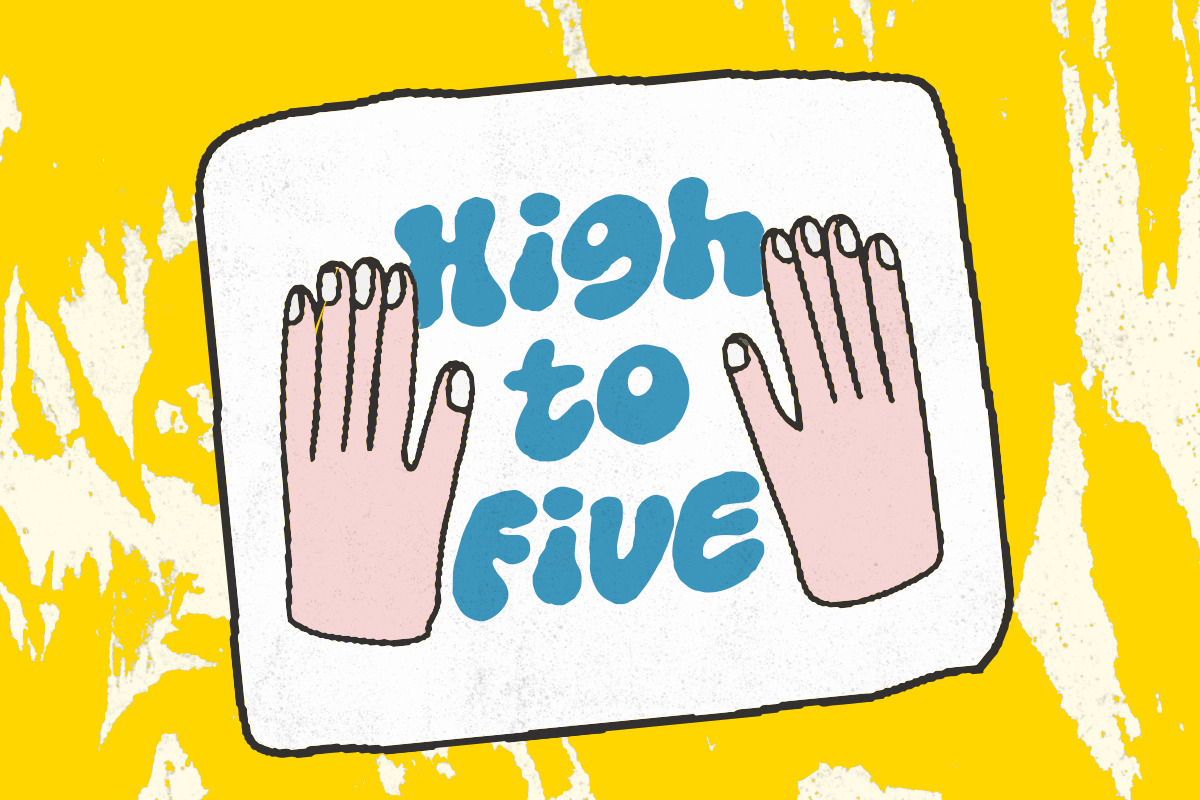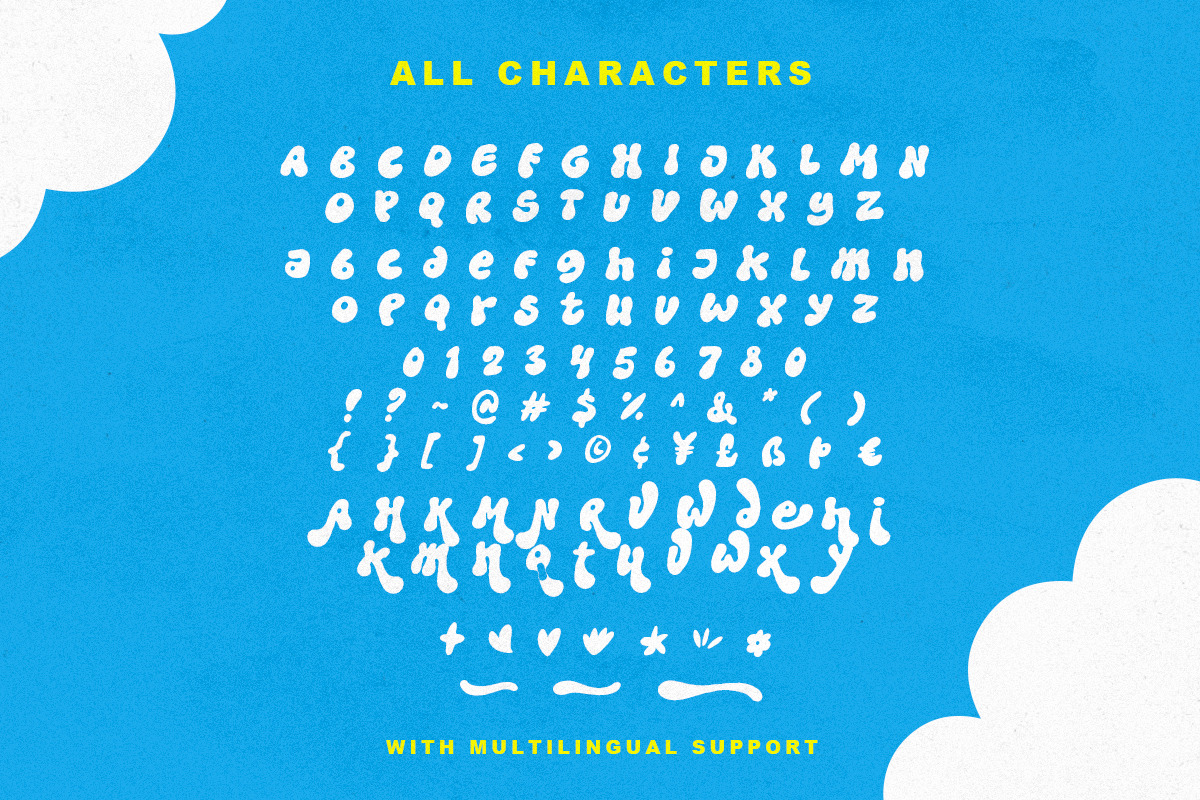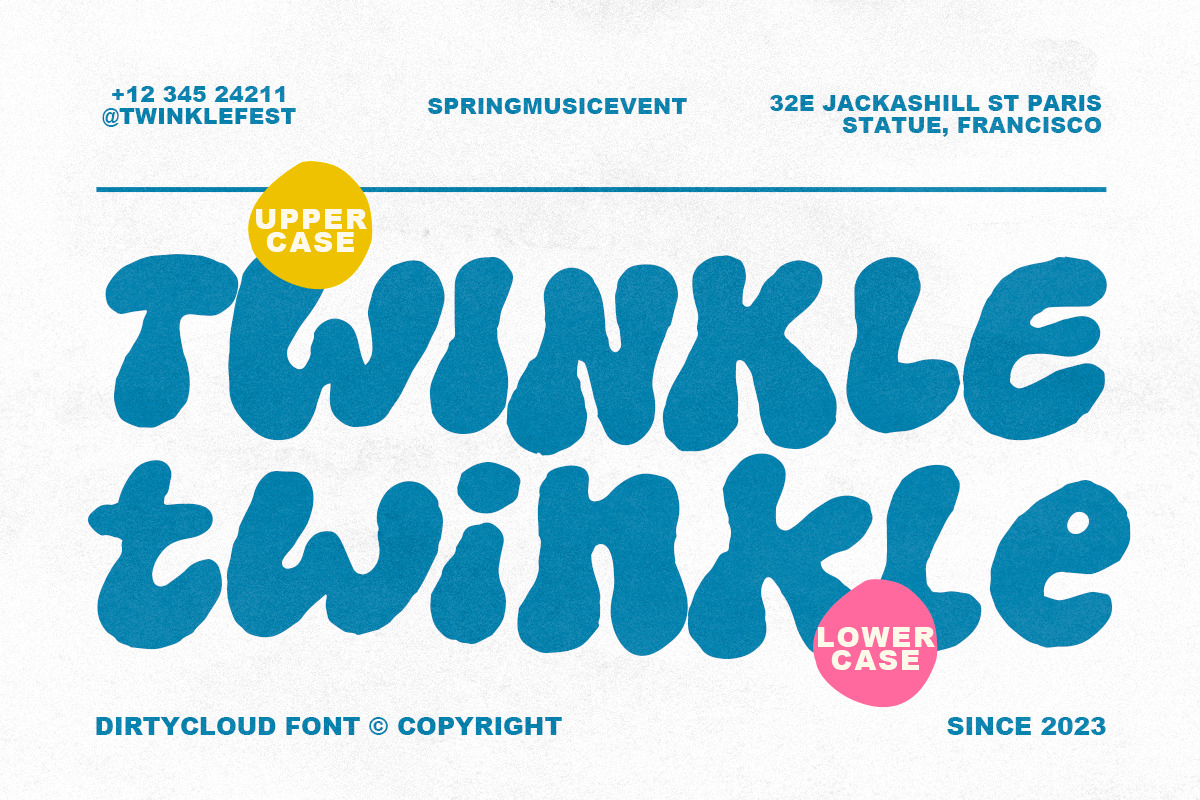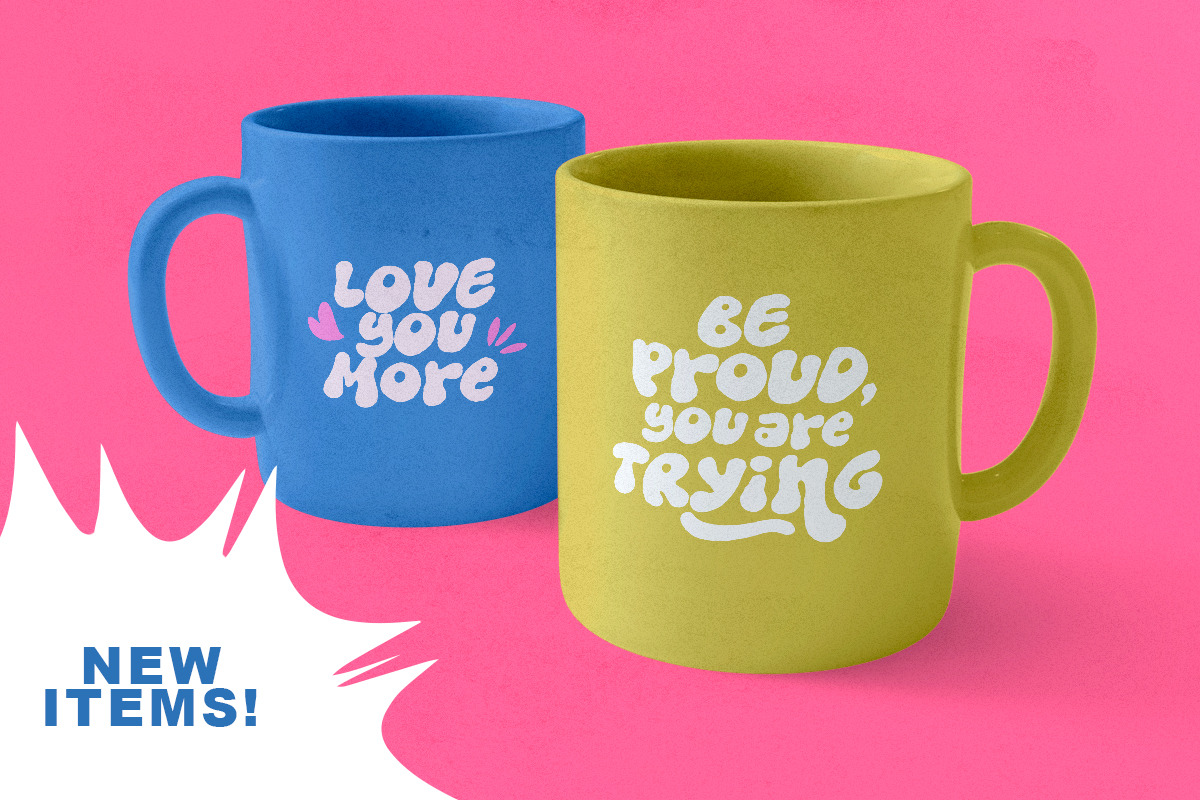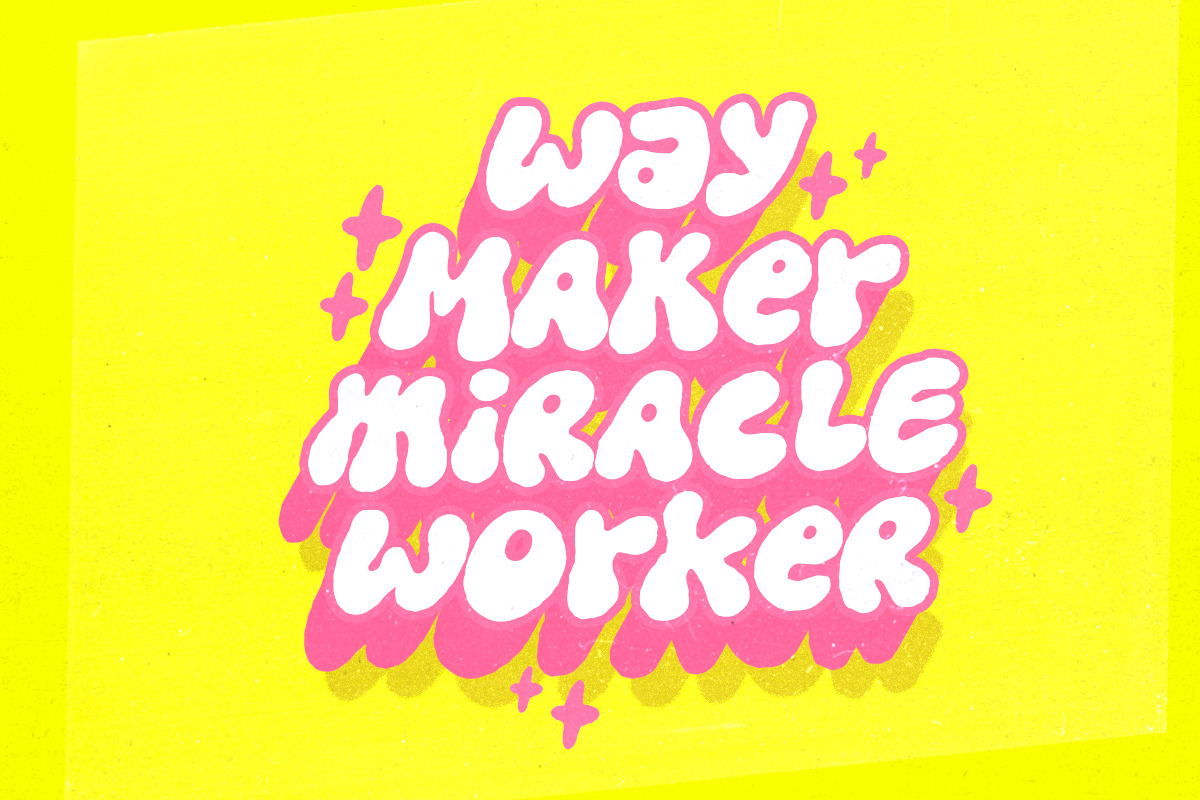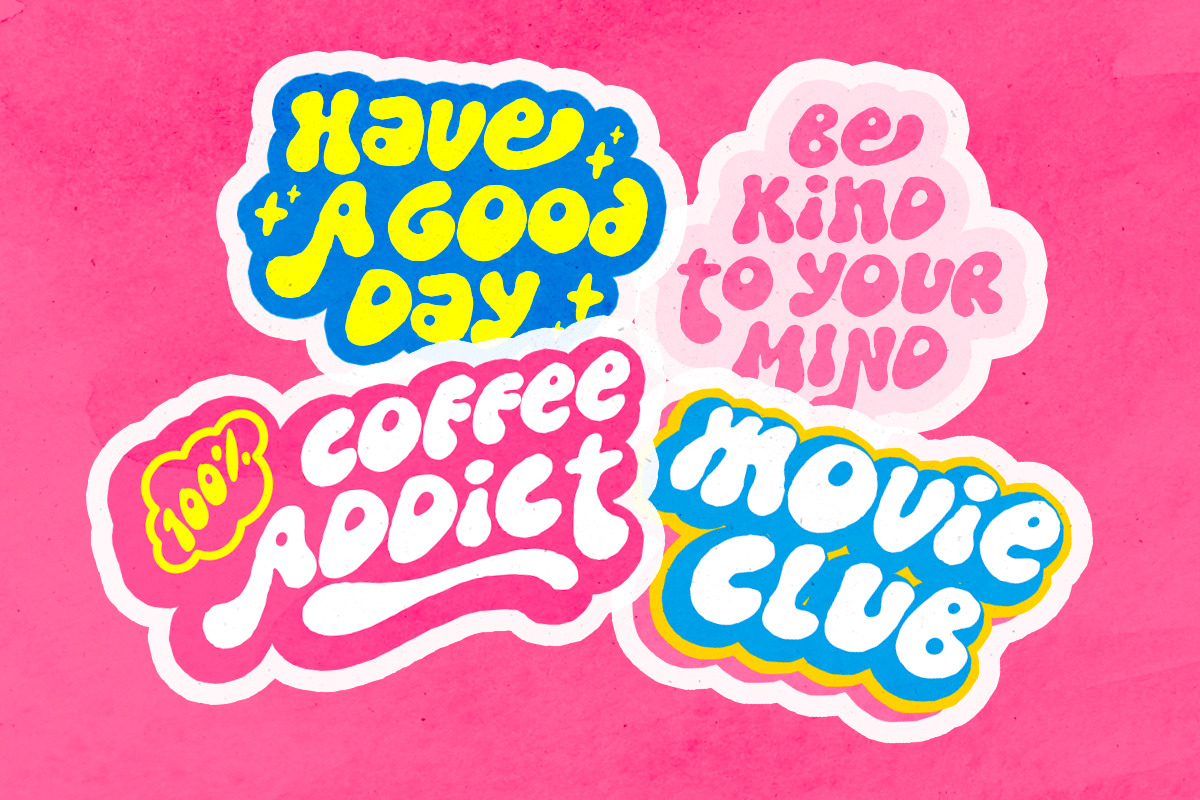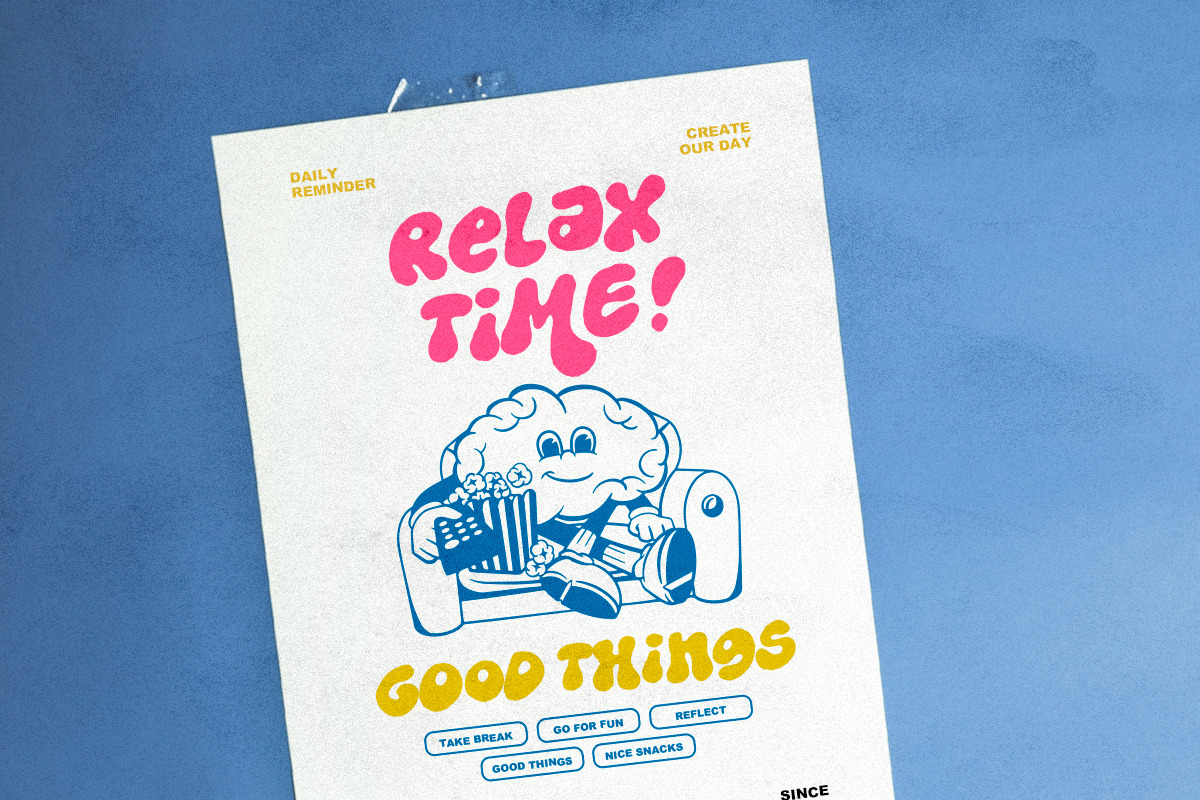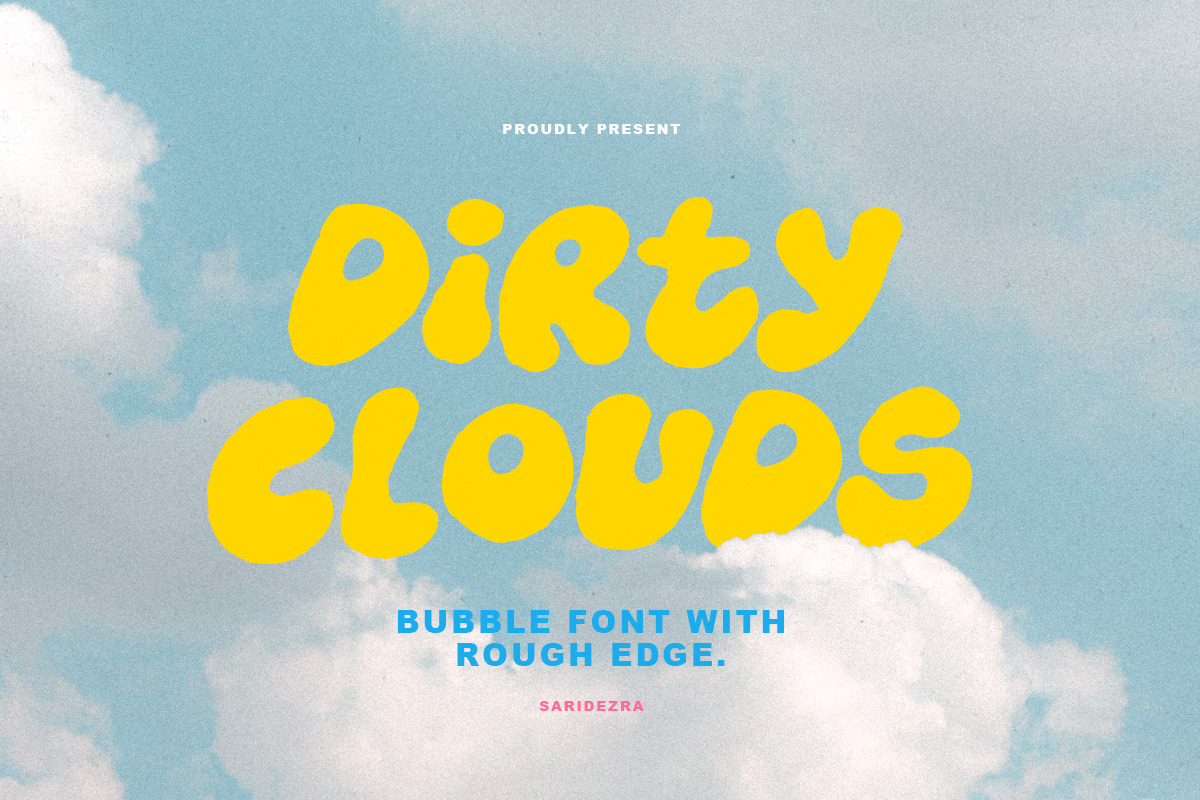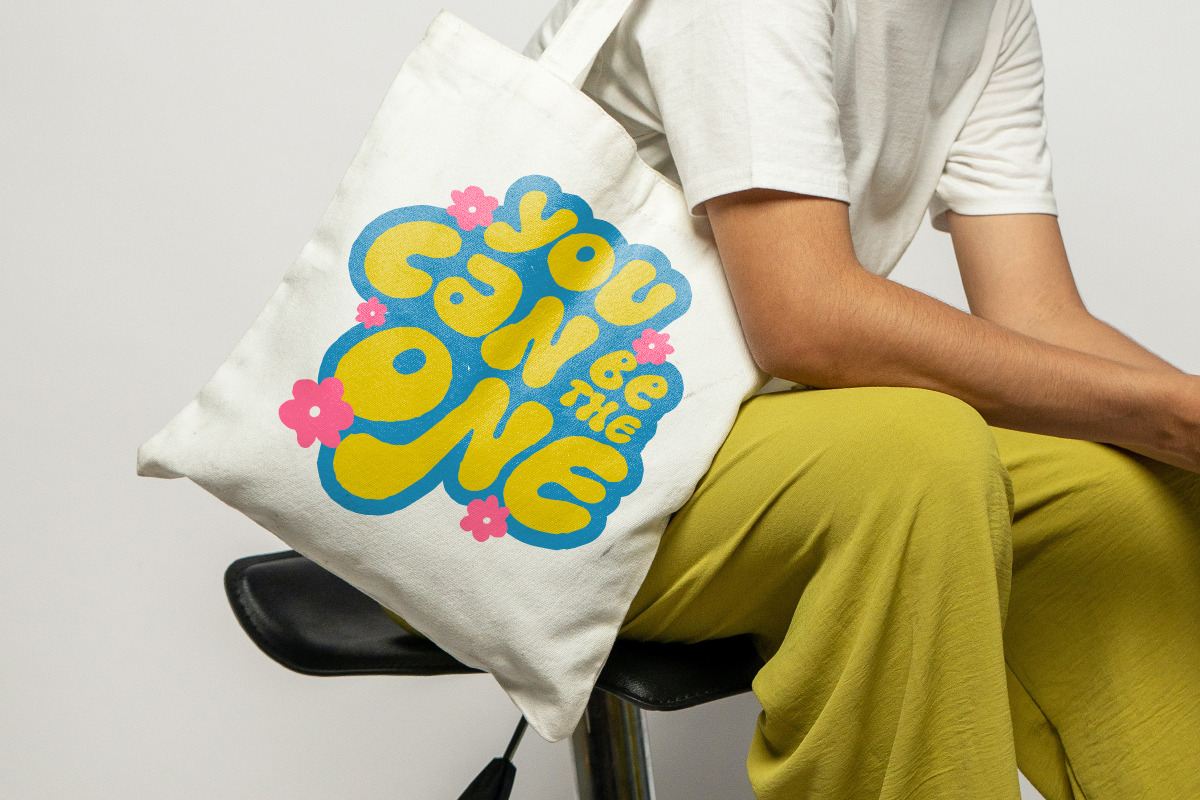
Dirty Clouds - Rough Bubble Font
Dirty Clouds is a hand drawn bubble font with rough edge. With organic looks, this font will make your design popping yet humanist. You can use this font for any purposes, such as poster, sticker, quotes or even for your branding. With different lowercase and uppercase, you can use both at the same time in a word to make your project looks more handmade. The special things about this font is, there is a bunch of alternates that you can use. Also, this font included some icons and underline that you can access from glyphs panel in your software design. Dirty Clouds also support multi language!
To access the icons and underlines, simply activate your ligature feature in opentype. Then type @ + number (1-6), for example: @1 to add some sparkle. For underlines, just type underscore + number(1-3) in the middle of the text, for example: Clo_2uds. You can try this is type tester below.